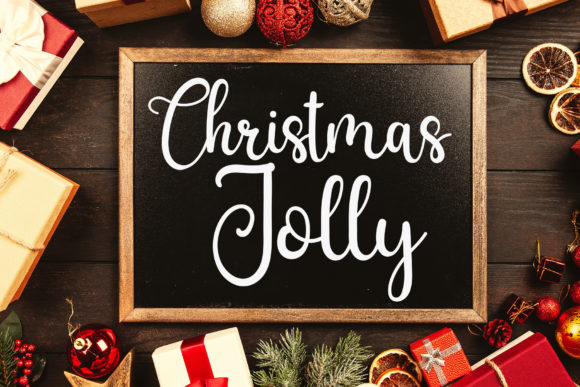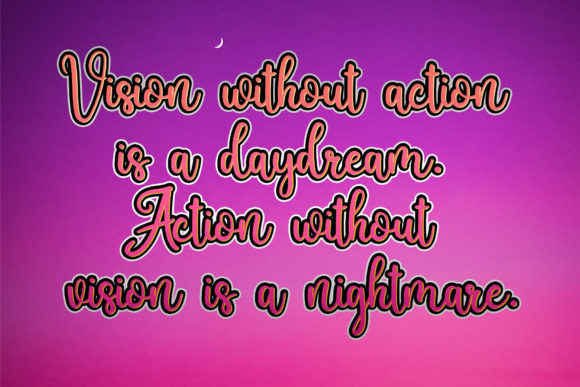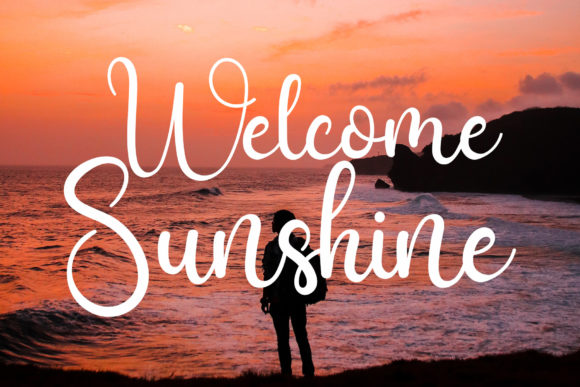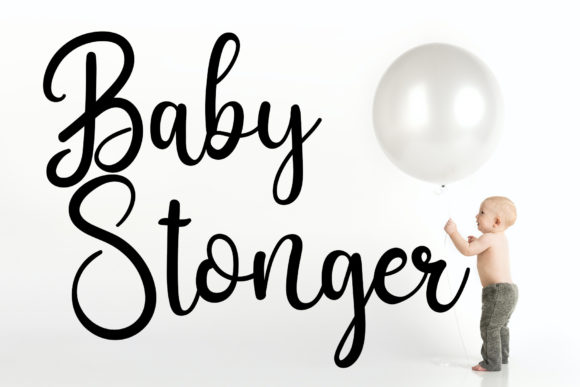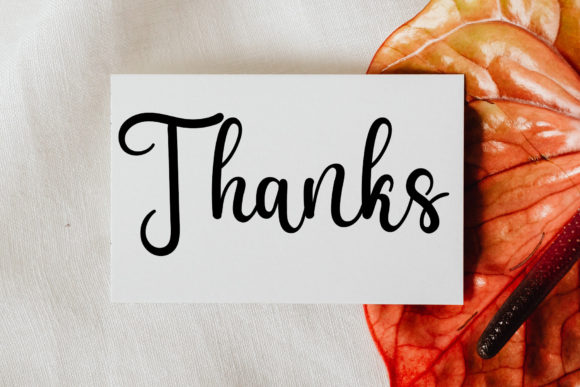
Introducing Alexia Font: Elevate Your Designs with Elegance and Class
Are you a designer or crafter looking for a font that exudes sophistication and refinement? Look no further than Alexia Font, a lovely and delicate script font that adds a touch of elegance to any design. In this article, we’ll explore the features and benefits of Alexia Font, and how it can elevate your designs to the next level.
What is Alexia Font?
Alexia Font is a beautiful script font that was particularly crafted for those who need a refreshing and elegant look to their designs. Its delicate strokes and curves make it perfect for a variety of design applications, from wedding invitations and stationery to branding and advertising materials.
Key Features of Alexia Font
- Elegant and Refined: Alexia Font boasts a sophisticated and refined aesthetic that is sure to impress. Its delicate strokes and curves create a sense of luxury and high-end quality.
- Delicate and Feminine: This font features a distinctly feminine touch, making it perfect for designs that require a touch of elegance and whimsy.
- Highly Versatile: Alexia Font can be used for a wide range of design applications, from digital projects to print materials.
- Easily Readable: Despite its delicate nature, Alexia Font is highly readable, even at smaller sizes.
Benefits of Using Alexia Font
So why choose Alexia Font for your designs? Here are just a few benefits of using this beautiful script font:
- Adds Elegance and Sophistication: Alexia Font instantly elevates your designs, adding a touch of elegance and refinement that is sure to impress.
- Creates a Lasting Impression: With its unique and beautiful aesthetic, Alexia Font helps create a lasting impression on your audience, setting your designs apart from the competition.
- Perfect for Branding: This font is ideal for branding and advertising materials, helping to create a cohesive and sophisticated visual identity for your business or brand.
How to Use Alexia Font in Your Designs
Using Alexia Font in your designs is easy. Here are a few tips to get you started:
- Pair with Bold Fonts: Combine Alexia Font with bold, sans-serif fonts for a striking contrast that adds visual interest to your designs.
- Use for Headings and Titles: Alexia Font is perfect for headings and titles, adding a touch of elegance and sophistication to your designs.
- Add a Personal Touch: Use Alexia Font to add a personal touch to your designs, creating a sense of whimsy and playfulness.
In conclusion, Alexia Font is a beautiful and elegant script font that is sure to elevate your designs to the next level. Its delicate strokes and curves create a sense of luxury and refinement, making it perfect for a variety of design applications. Whether you’re a designer, crafter, or business owner, Alexia Font is a great choice for anyone looking to add a touch of elegance and sophistication to their designs.